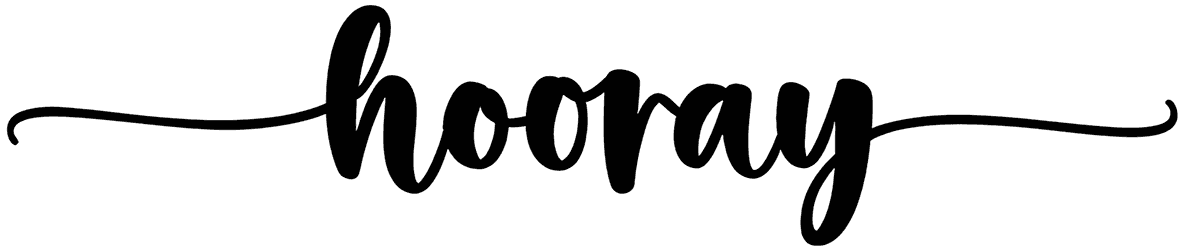
Hooray Font
You are free to put this linked handwritten font to use for everything from branding and blog headlines to logos and banners. The name of this organic love font is Hooray.